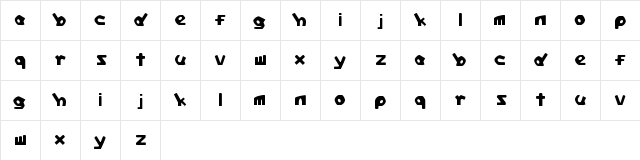
Complete Sanctuary regular glyph index. Displaying only characters natively supported by Sanctuary regular font.
Sanctuary is a composed and adaptable typeface that performs quietly and consistently across a wide range of design contexts.